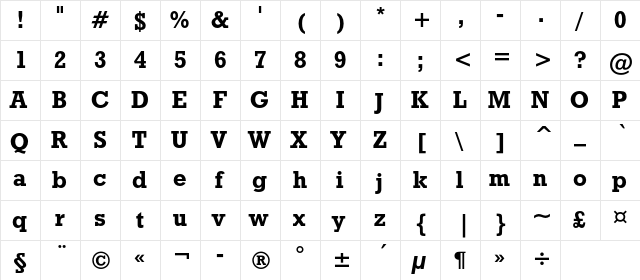
GeoSlb712BoldC BT Regular
Design Context for GeoSlb712BoldC BT Typeface
GeoSlb712BoldC BT is a composed and adaptable typeface that performs quietly and consistently across a wide range of design contexts. Its bold stroke weight gives it real presence on the page.